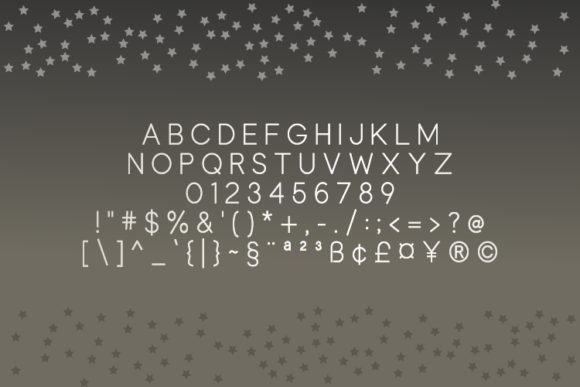
Introducing Eleua Medium Font: The Ultimate Sans Serif for Modern Designs
In the world of typography, a font can make or break a design. With the vast array of fonts available, finding the perfect one that embodies both style and simplicity can be a daunting task. However, if you’re looking for a sans serif font that exudes a clean and casual feel, look no further than Eleua Medium Font. In this article, we’ll dive into the features and benefits of Eleua, and explore why it’s an excellent choice for designers and crafters alike.
What is Eleua Medium Font?
Eleua is a simple and casual sans serif font that boasts an undeniably clean feel. Its neat and beautiful arrangement of letters makes it an outstanding choice for both formal and non-formal designs. The font family consists of 10 weights, allowing you to choose the perfect weight to suit your design needs. Whether you’re working on a branding project, a website, or a craft project, Eleua has got you covered.
Key Features of Eleua Medium Font
- Clean and Simple Design: Eleua’s sans serif design ensures that your text is easy to read and understand, making it perfect for body text, headings, and titles.
- 10 Weights: The Eleua font family offers 10 weights, ranging from thin to bold, giving you the flexibility to choose the perfect weight for your design.
- Casual and Versatile: Eleua’s casual feel makes it suitable for a wide range of designs, from formal documents to social media graphics and craft projects.
- Beautiful Letter Arrangement: The font’s neat and beautiful letter arrangement ensures that your text looks stunning, whether it’s used for headings, titles, or body text.
Benefits of Using Eleua Medium Font
- Improved Readability: Eleua’s clean design and simple letterforms ensure that your text is easy to read, even at small font sizes.
- Enhanced Visual Appeal: The font’s beautiful arrangement of letters and casual feel add a touch of elegance to your designs, making them more visually appealing.
- Flexibility: With 10 weights to choose from, Eleua can be used for a wide range of designs, from subtle and understated to bold and attention-grabbing.